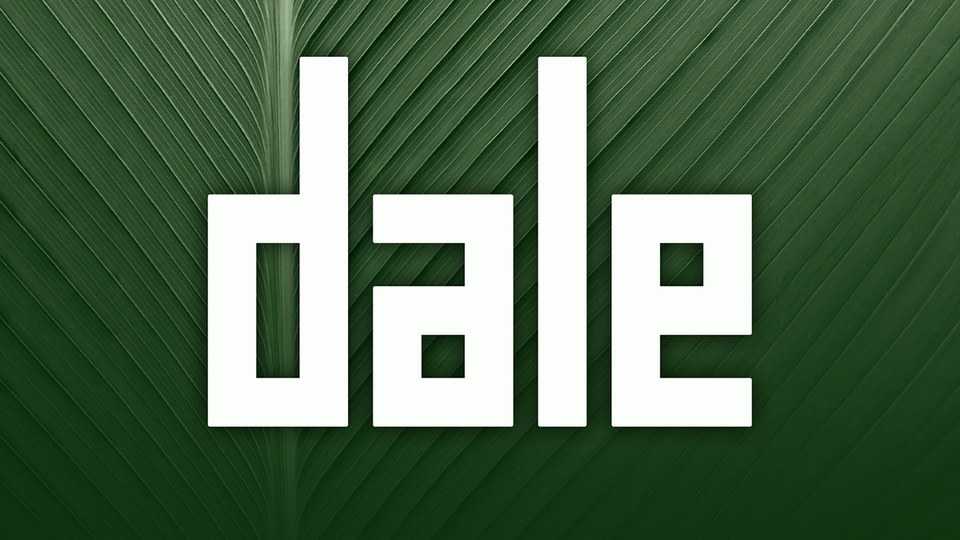
Download Dale typeface, a geometric display font family, featured by 5 styles ranging from angular to rounded forms. Dale font is great for posters, headlines and game design purposes.
Designer: Burak Mescioğlu